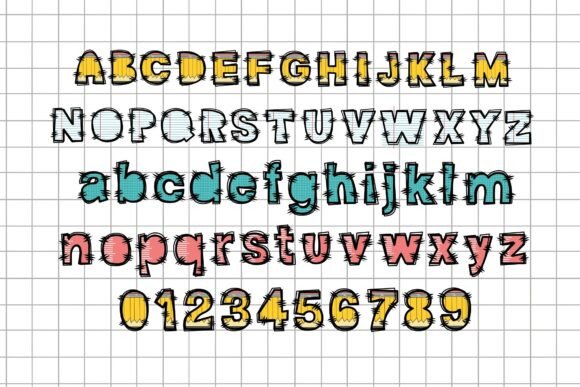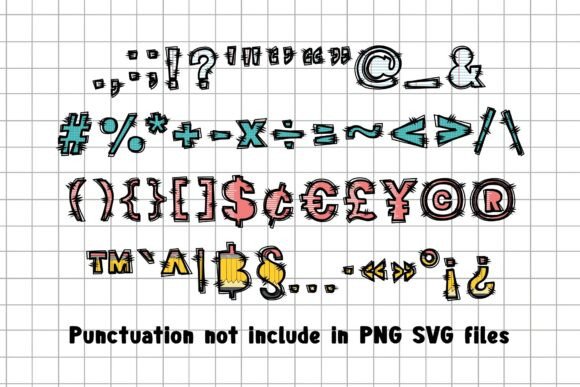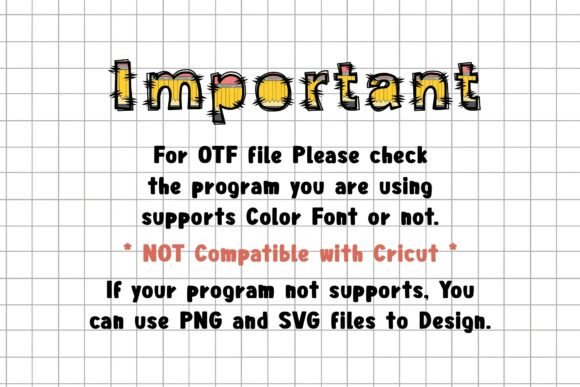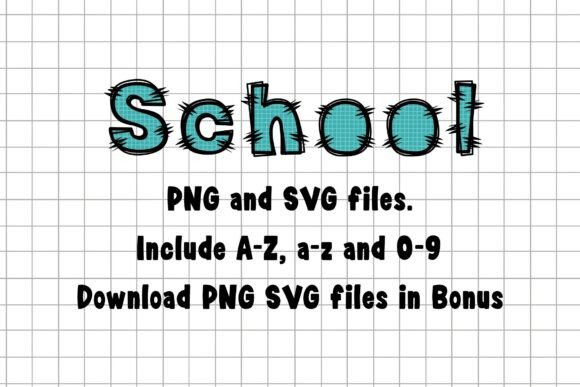
Get Ready to Bring Back the Excitement of Back-to-School Season
Do you remember the feeling of excitement and nervousness as you headed back to school? The smell of freshly sharpened pencils, the sound of backpacks zipping up, and the sight of colorful notebooks and folders – it’s a moment many of us cherish. As a designer, you can recreate that magic for your clients with the perfect font.
Enter the Backto200pencil Font, a vibrant and playful OpenType-SVG color font that brings the classroom to life. With its bold, scribbly black outline and school-supply fills, this font is perfect for teacher merch, bulletin boards, worksheets, invitations, stickers, and printables. Whether you’re working on a project for a teacher, a school, or a parent, the Backto200pencil Font is a valuable addition to your design toolkit.
- Unique Characteristics: Hand-drawn design, reminiscent of 2000s-style graffiti, with a distressed and worn look
Review of Backto200pencil Font
I’ve had the chance to work with the Backto200pencil Font, and I must say it’s a unique addition to any design project. Here are some aspects that work well:
- ✨ The font has a distinctive, hand-drawn feel that adds a touch of personality to text-based elements. It’s perfect for creative projects or those that need a more whimsical tone.
- ✨ The font’s varying line widths and irregular shapes give it a sense of organic charm, which can be beneficial for designs that aim to evoke a sense of nostalgia or retro feel.
- ✨ Backto200pencil Font is highly customizable, allowing designers to fine-tune the font’s appearance to suit their specific needs.
- ⚠️ The font may not be ideal for projects that require a more polished, professional look. Its hand-drawn aesthetic can come across as unrefined or amateurish in certain contexts.
- ⚠️ Some characters may appear inconsistent or awkwardly formed, which can detract from the overall visual impact of the design.
- ⚠️ As with any font, legibility can be a concern in certain situations, particularly at smaller font sizes or when used in complex layouts.
Overall, Backto200pencil Font is a solid choice for designers who want to add a touch of personality to their projects. While it may not be suitable for every design scenario, its unique charm and customization options make it a valuable asset for those who know how to use it effectively.
The Back to 200 Pencil font is ideal for creating a nostalgic or retro look. It’s commonly used in:
- Designing vintage-inspired graphics.
- Creating nostalgic-themed websites or social media posts.
- Adding a touch of whimsy to marketing materials.